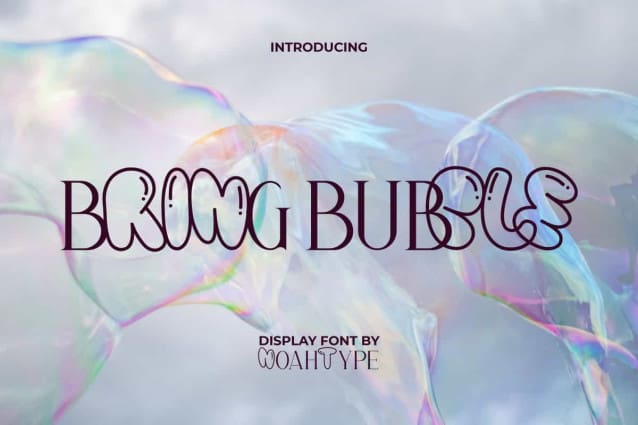
Bring Bubble Font
Bring Bubble Font is a font duo with playful fun balloon and bubble theme. This font has two different display characters, there is cartoon type with bubbles and serif. It will be good for any designs, such as brand image, custom design, invitation, label, magazine, poster, product packaging, quote, signage, stationery, website page, and more!
Bring Bubble Font includes full set of Uppercase and Lowercase Basic Characters, Numerals, Punctuation, and Symbol. The characters of this font will give cute and elegant looks at the same time, so it will be perfect for many industries, such as advertising, art creative, café, event or wedding organizer, fashion, florist, kids stuff, printing, publishing, restaurant, etc.